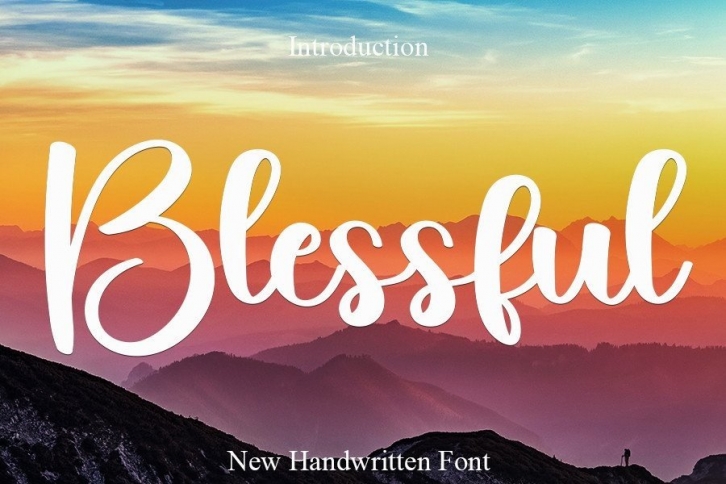
Blessful is a delicate and well-rounded handwritten font, perfect for crafty projects that need authentic typography! Use it for wedding invitations, birthday cards, personal branding, elegant logos, or more.